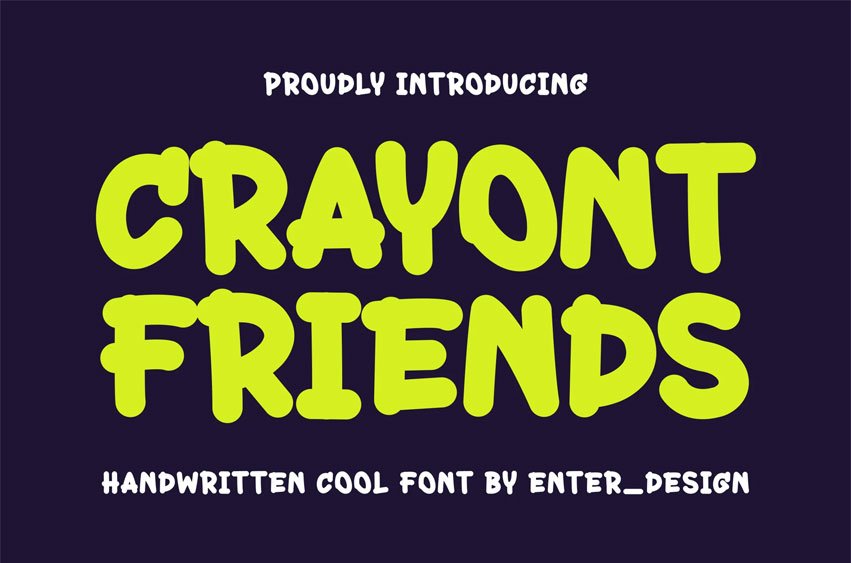
Crayont Friends Font Modern Font is a bold and authentic display font.
The font is suitable for any branding project like logo, esport, and many more. outstanding in a wide range of contexts.